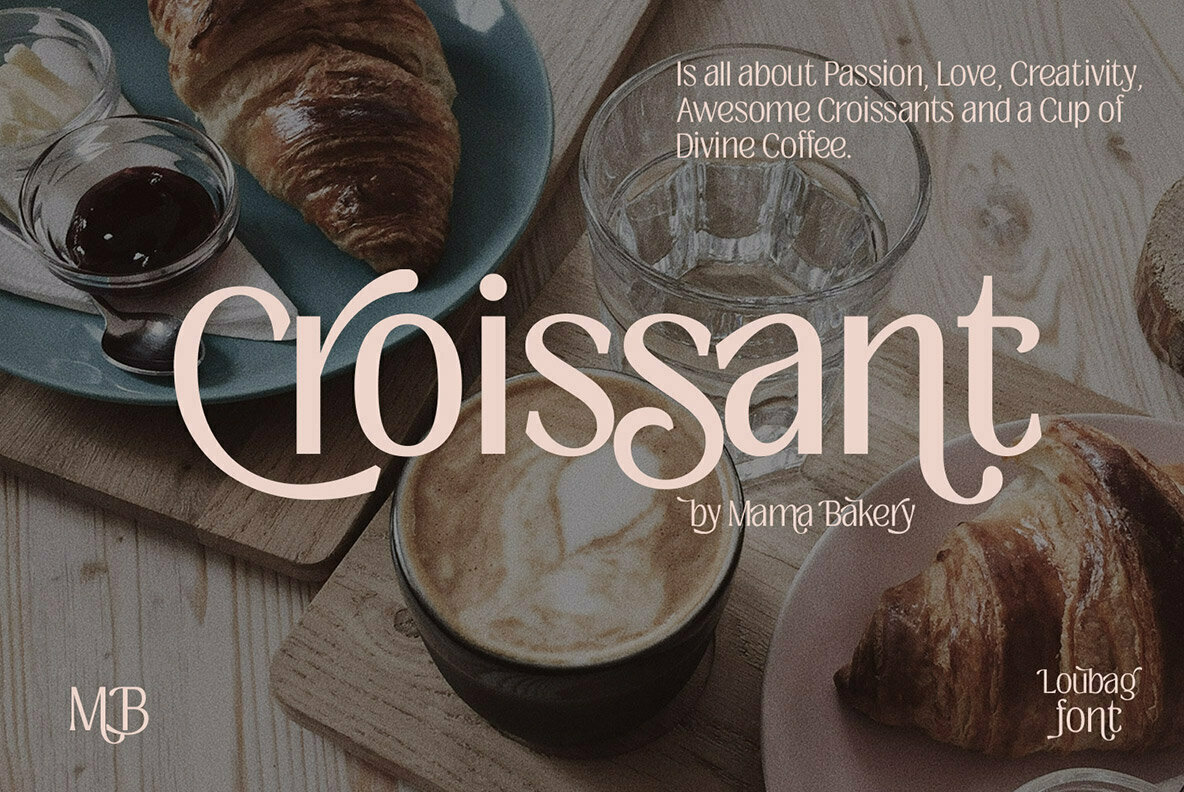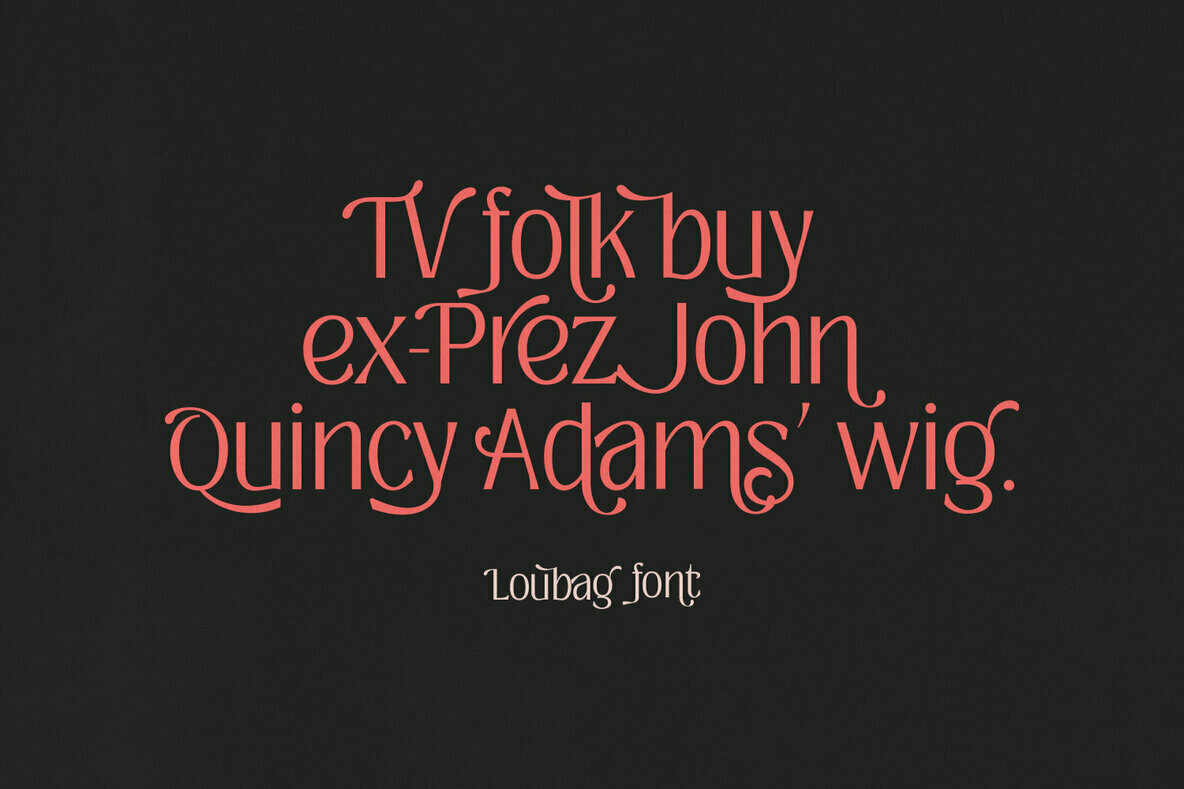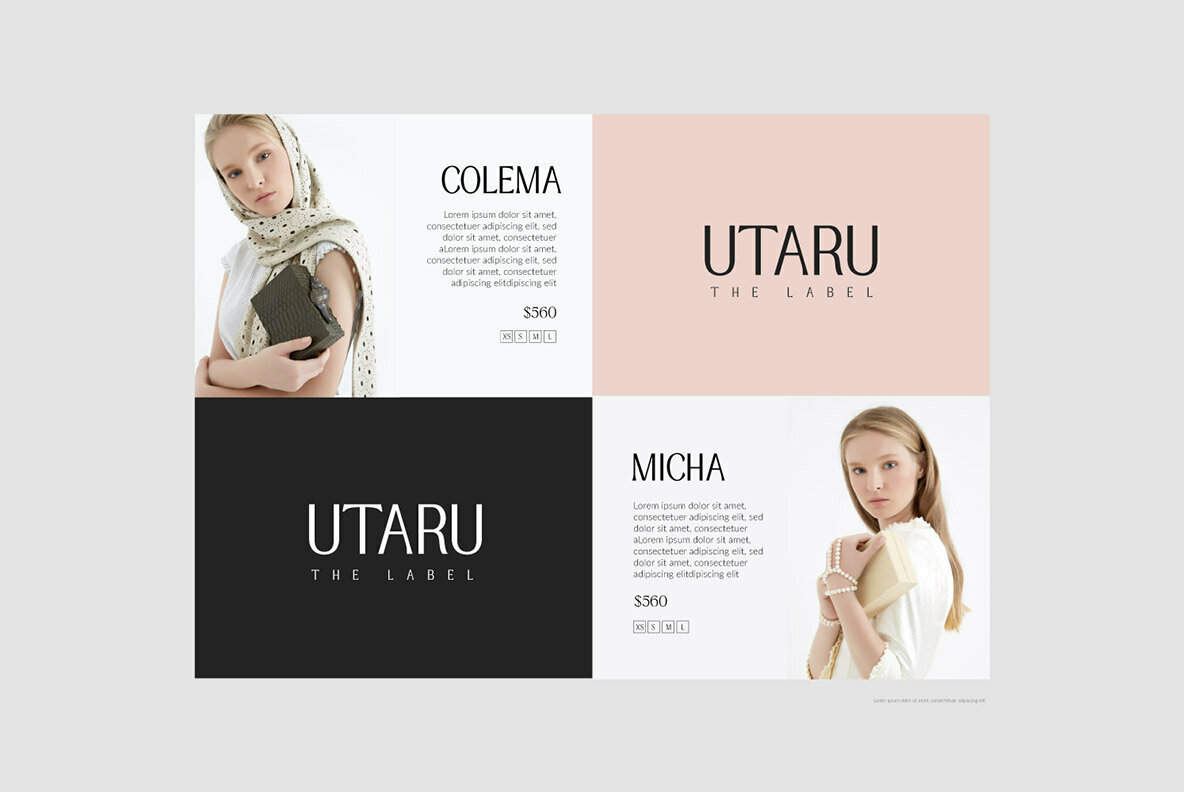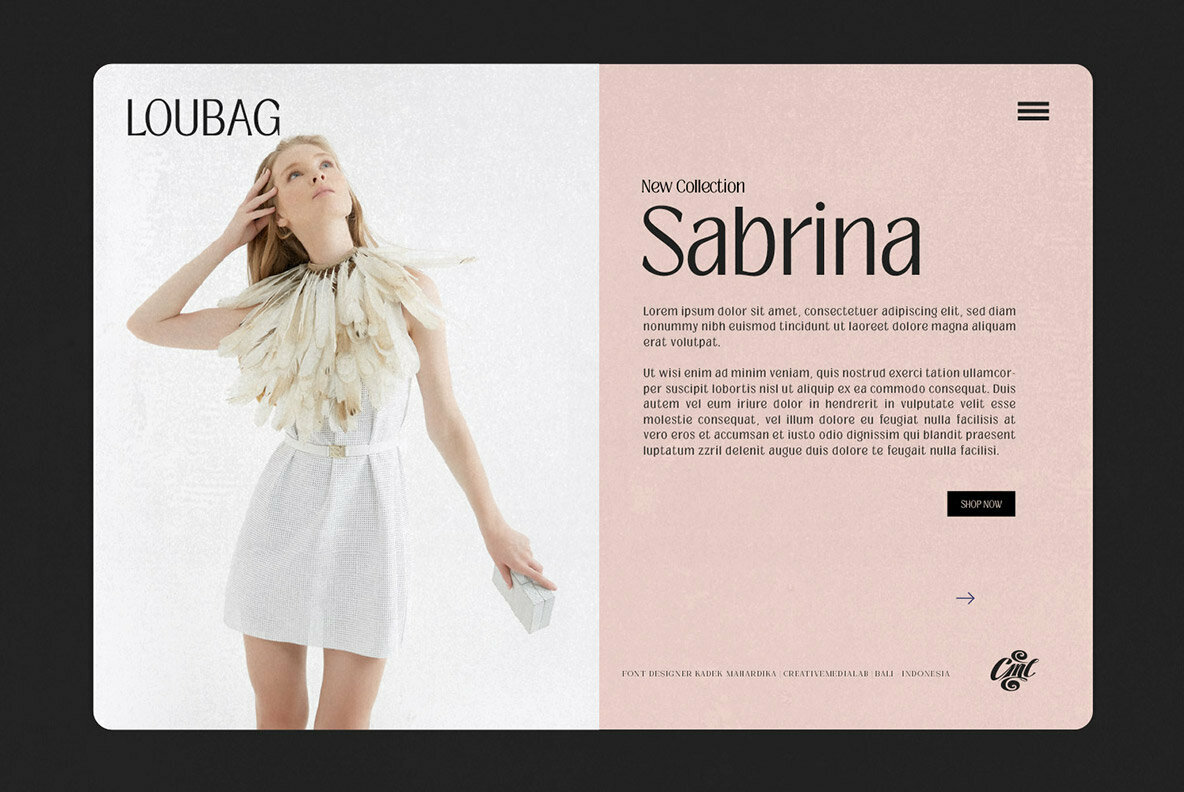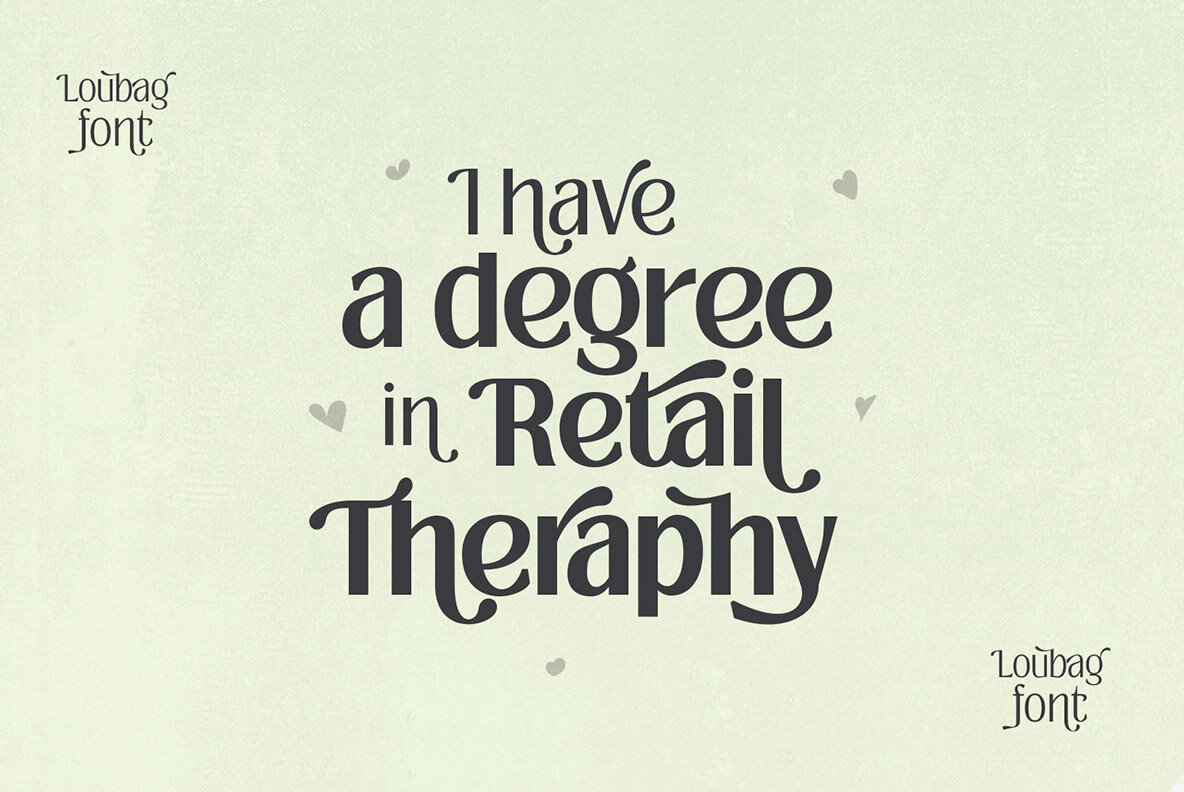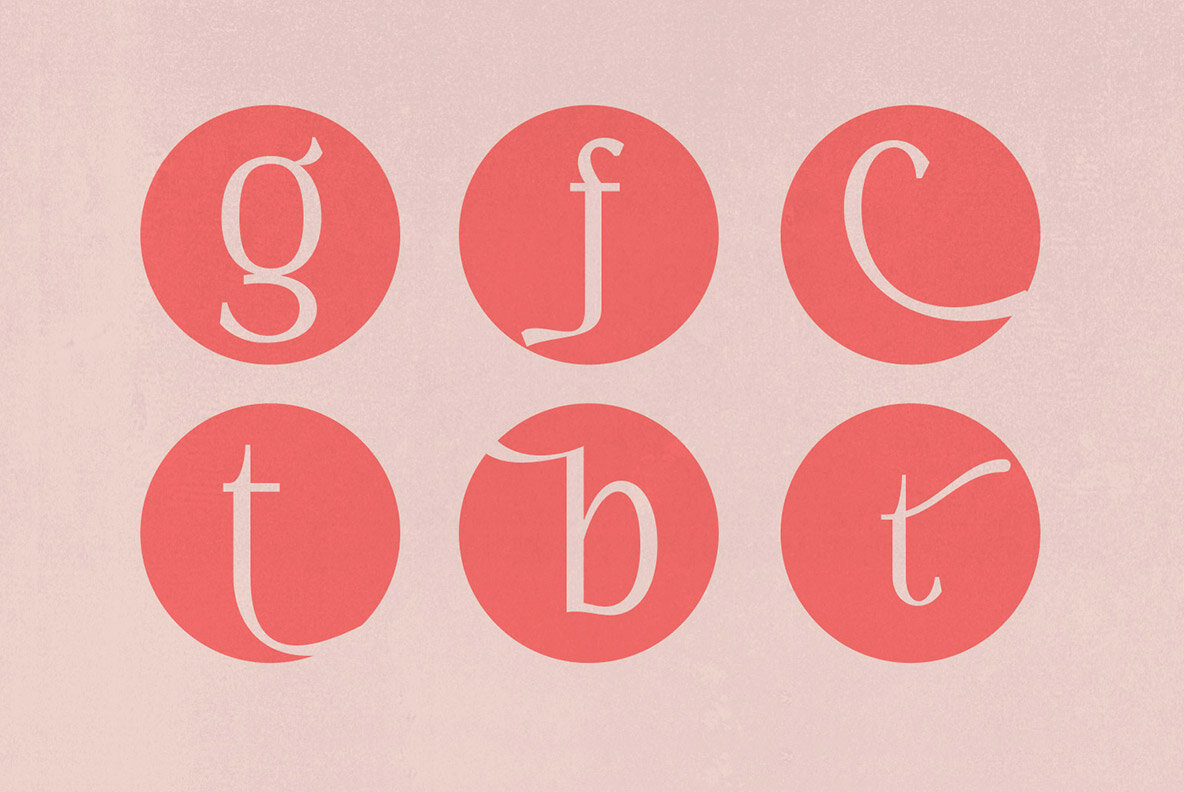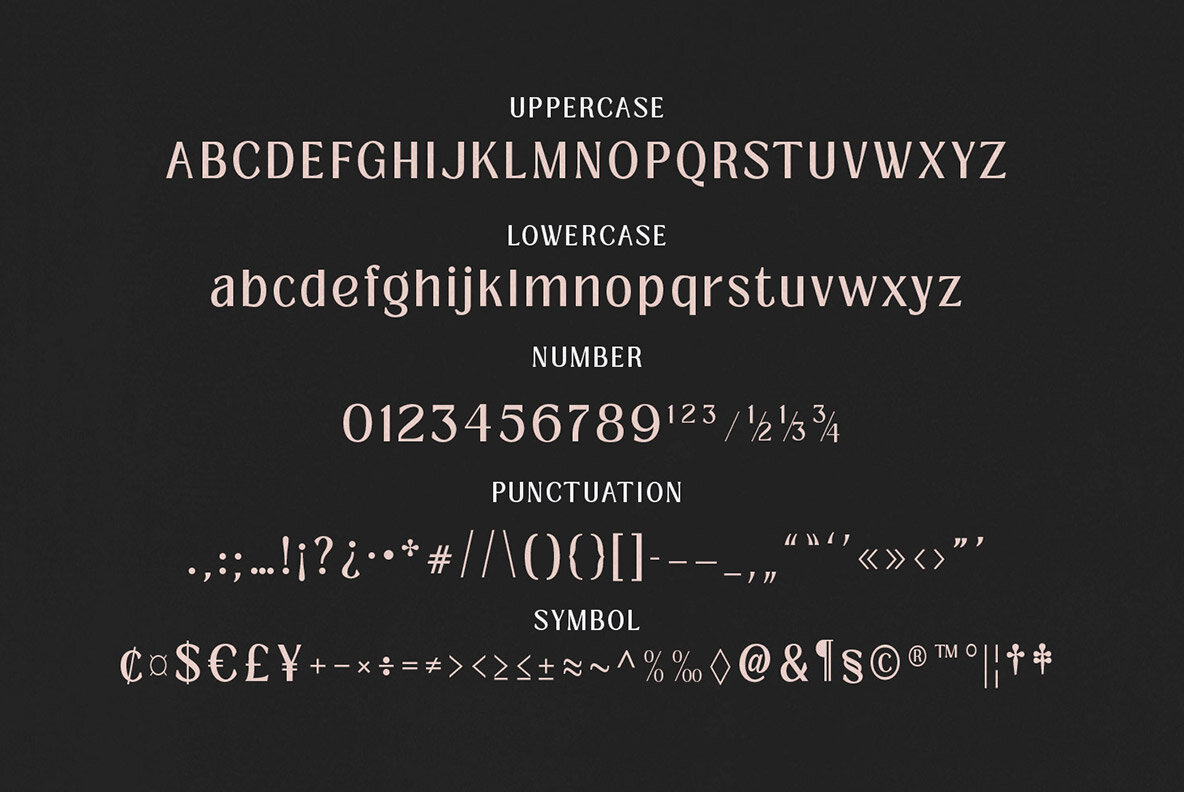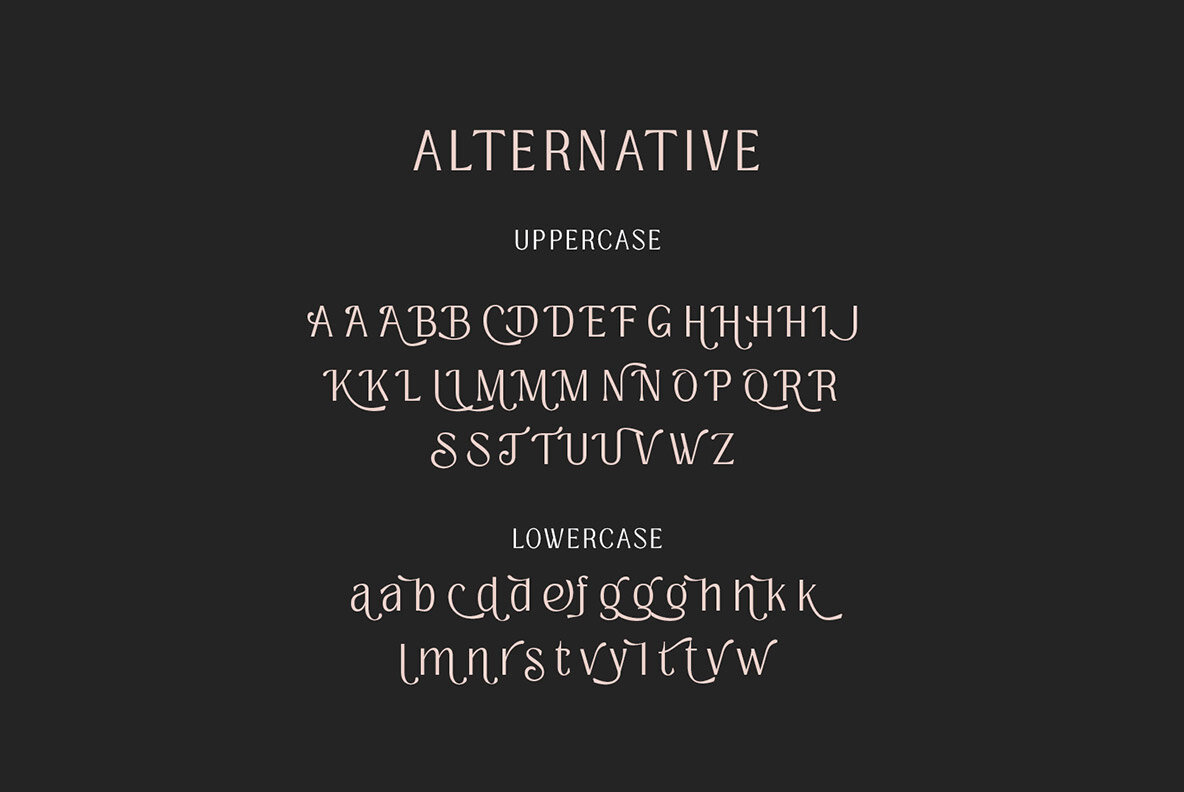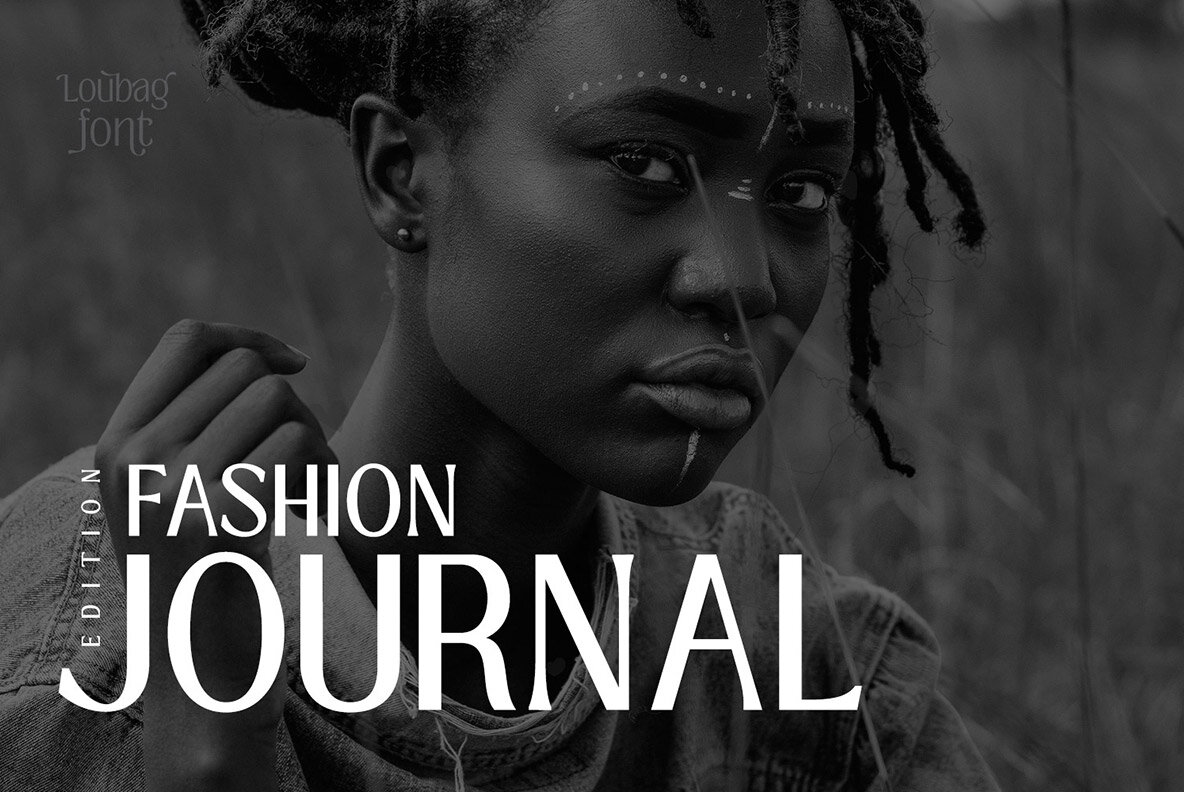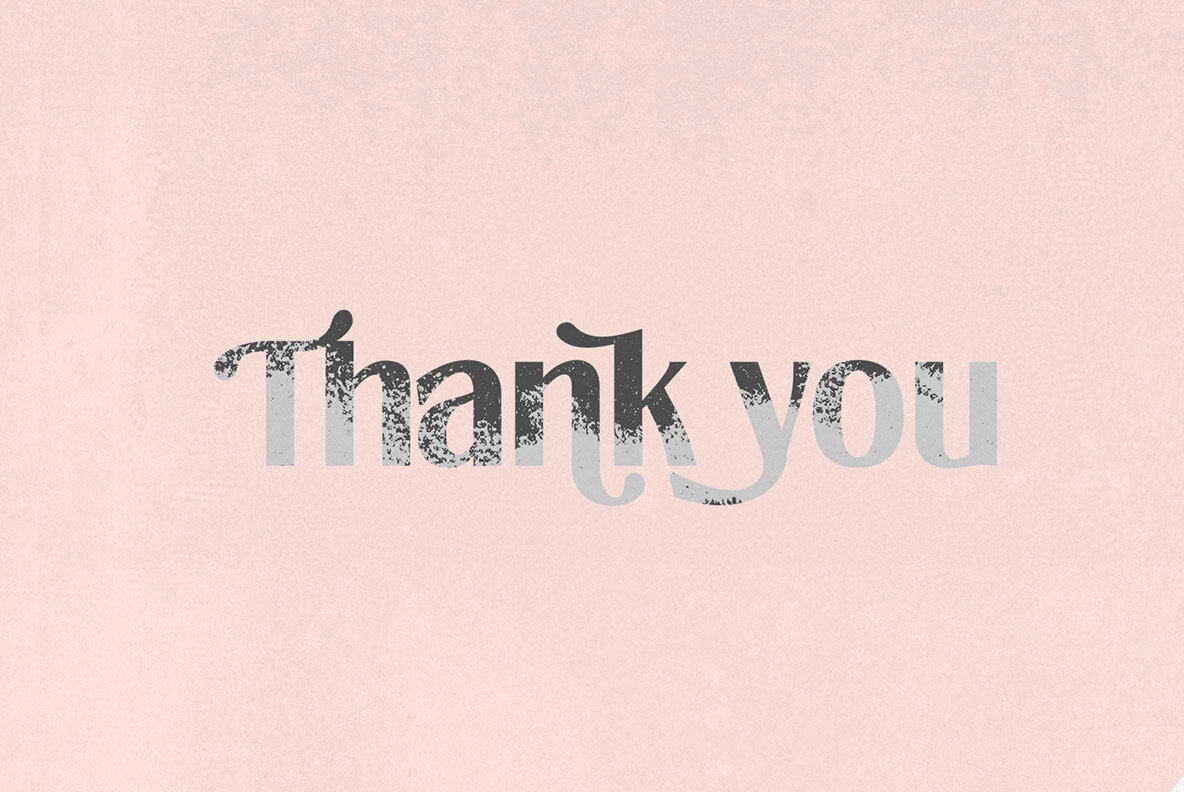
Loubag is a combination of modern sans and serif font with a retro touch that makes this family unique.
This family has 9 weights from thin to black, also includes a Variable style as well as multilingual support, numbers, and currency symbols.